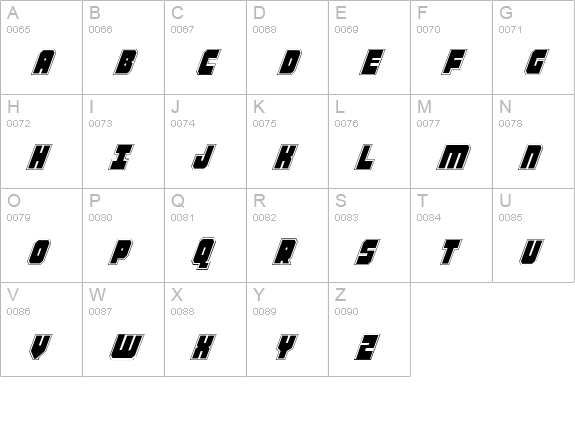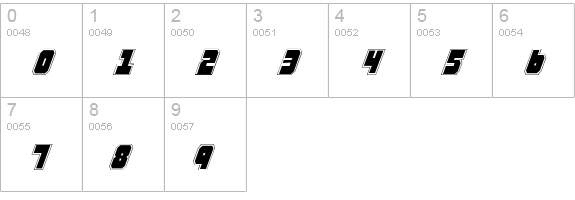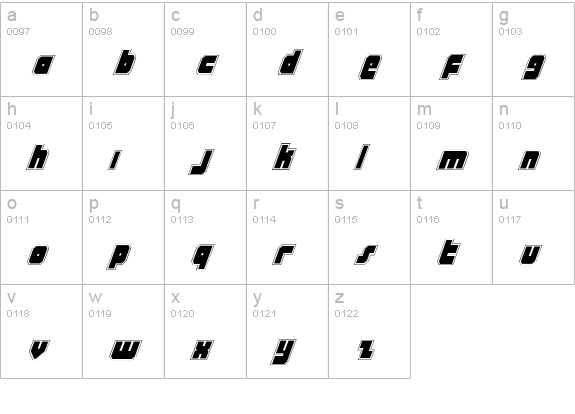
Alpha Taurus Pro Italic Font Details
Alpha Taurus Pro Italic is a distinctive, italic variant in the Alpha typeface family \xE2\x80\x94 well suited to design and typography projects.
Alpha Taurus Pro Italic font is a sleek and modern typeface that exudes sophistication and elegance. With its slanted style and bold design, this font is perfect for adding a touch of class to any project. Whether you're designing a website, creating a logo, or crafting a promotional material, Alpha Taurus Pro Italic font will make your text stand out and leave a lasting impression. The best part about Alpha Taurus Pro Italic font is that it is completely free to download at FontsMarket.com. This means you can access this stylish font without any cost, making it a valuable addition to your font collection. Don't miss out on the opportunity to elevate your design projects with the Alpha Taurus Pro Italic font - download it today and take your creations to the next level.